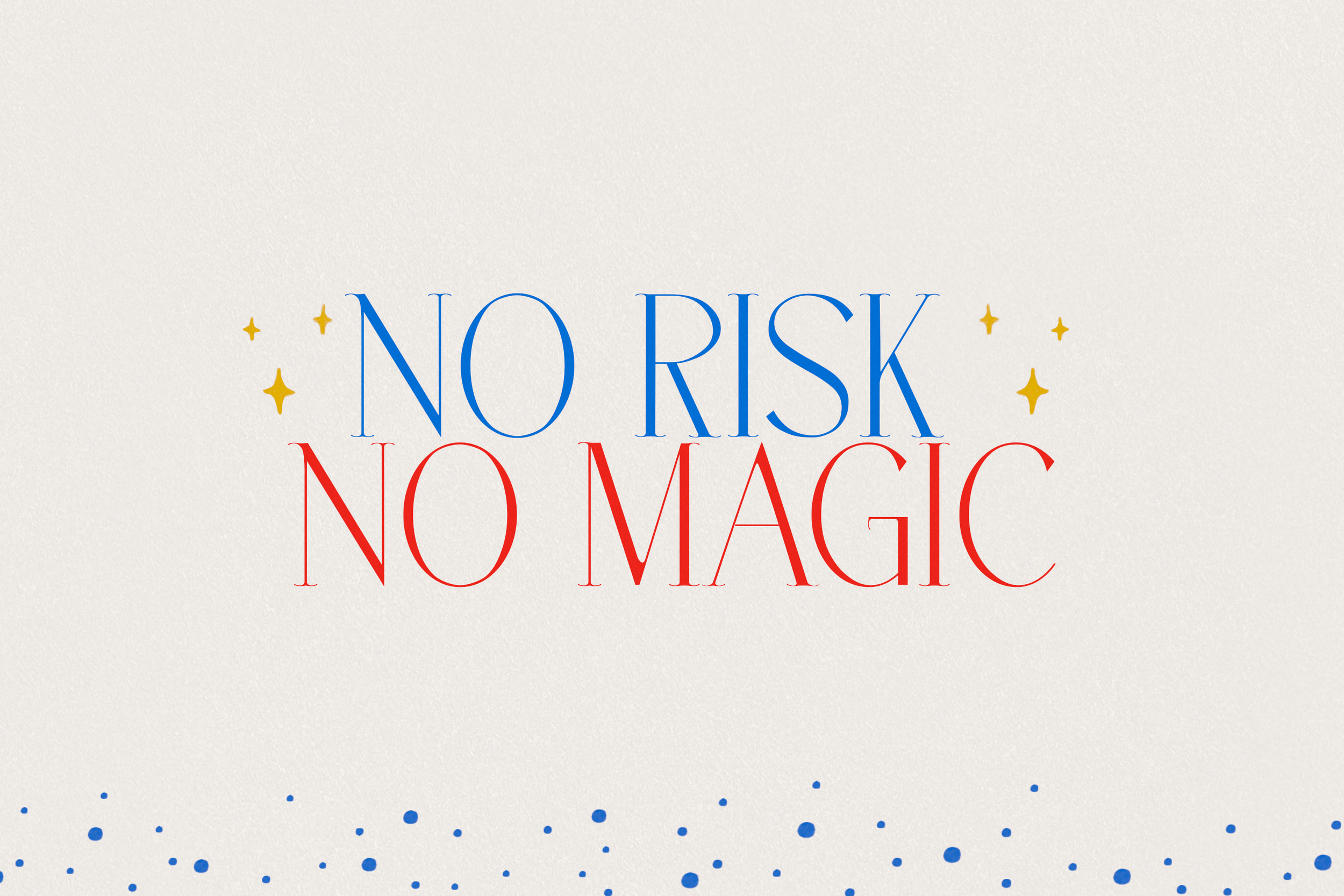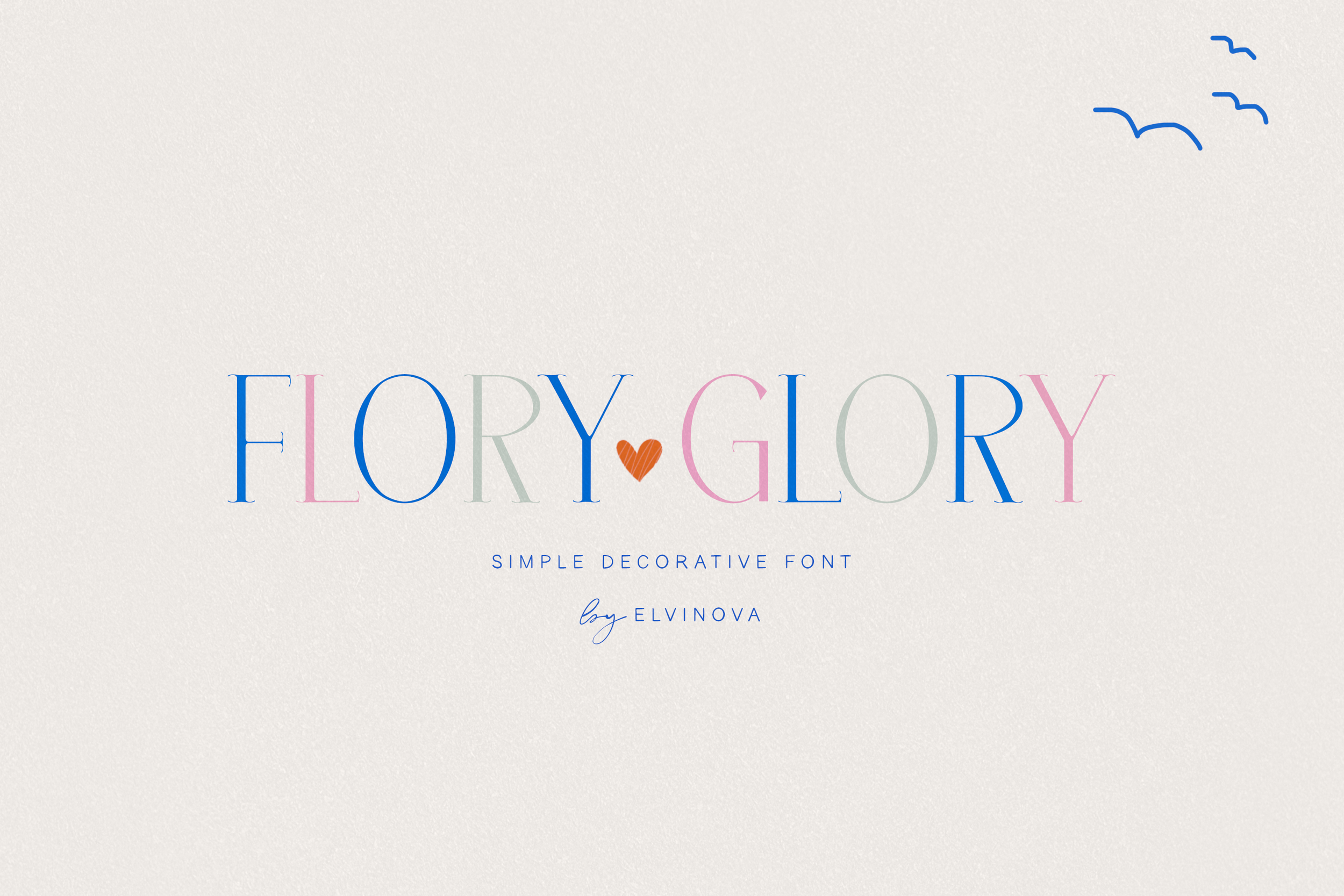
Flory Glory is a thin, decorative serif font perfect for headings, long words, and adding a cute accent. Light, friendly, elegant, it brings charm and warmth to any design.
- Contains: Uppercase and lowercase letters, numerals, punctuation marks
- Regular, Bold